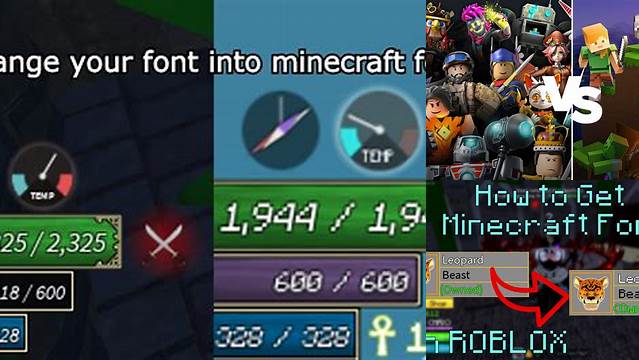
Roblox Fonts In Minecraft: A Style Crossover Guide
Hey guys! Ever wondered how to bring a little bit of your favorite Roblox vibe into Minecraft? Or maybe you're just curious about the fonts that make these games so visually distinct? Well, you've come to the right place! Today, we're diving deep into the world of Roblox fonts and exploring how they can be integrated into the blocky universe of Minecraft. This is a super cool topic, especially if you're into game design, aesthetics, or just love customizing your gaming experience. So, let's get started!
Understanding Fonts in Gaming
First things first, let's chat about why fonts are so crucial in the gaming world. You might think they're just a minor detail, but trust me, they play a massive role in shaping the overall feel and user experience of a game. Fonts are the unsung heroes of game design, influencing everything from readability to the emotional tone a game conveys. Think about it: a futuristic sci-fi game wouldn't use a handwritten, cursive font, right? It would clash terribly! The font needs to match the game's theme and atmosphere.
In games like Roblox and Minecraft, the fonts chosen contribute significantly to their unique identities. Roblox, with its playful and approachable style, often uses fonts that are blocky, rounded, and easy on the eyes. This reflects the game's target audience, which includes a lot of younger players. On the other hand, Minecraft, with its pixelated and somewhat retro aesthetic, typically employs fonts that complement its blocky graphics and simple design. The font needs to be legible even with all the pixelation, adding to the game's charm rather than detracting from it.
Fonts impact more than just the text you read in menus and dialogues. They affect how you perceive the game's world, its characters, and its overall story. A well-chosen font can immerse you deeper into the game, while a poorly chosen one can break that immersion faster than you can say "game over." This is why game developers spend a considerable amount of time selecting and sometimes even creating custom fonts that perfectly match their game's vision. So, when we talk about bringing Roblox fonts into Minecraft, we're not just talking about changing the look of the text; we're talking about potentially altering the entire feel of the game. Cool, right?
The Allure of Roblox Fonts
So, what's so special about Roblox fonts anyway? Why would you even want to use them in Minecraft? Well, there are a few reasons. First off, Roblox has a very distinct visual style that many players find appealing. Its fonts are often bold, simple, and slightly cartoonish, which gives the game a friendly and inviting vibe. If you're a fan of this aesthetic, bringing it into Minecraft can be a fun way to personalize your gaming experience.
Many players have grown up with Roblox, so its fonts might evoke a sense of nostalgia. Imagine seeing those familiar letters and words in a new context – it's like a little easter egg for your brain! Plus, if you stream or create content around Minecraft, using Roblox fonts can be a cool way to add a unique visual signature to your brand. It's a subtle nod to another popular game that your audience might appreciate.
Another reason is simply the novelty of it. Minecraft is known for its classic, pixelated font, which is part of its charm. But sometimes, you just want to mix things up! Swapping out the default font for a Roblox-inspired one can give your game a fresh new look and feel. It's a bit like redecorating your in-game house – a small change that can make a big difference.
But beyond the aesthetics, using Roblox fonts in Minecraft can also be a fun technical challenge. It's an opportunity to explore how game customization works and to learn a bit about font files and how they're implemented. This can be particularly interesting if you're into modding or game development yourself. You get to tinker with the game's inner workings and see how different elements interact. In short, the allure of Roblox fonts lies in their distinctive style, the nostalgia they evoke, the opportunity for personalization, and the technical fun they offer. It's all about making your gaming experience your own!
Identifying Roblox Fonts
Okay, so you're intrigued by the idea of using Roblox fonts in Minecraft, but how do you even figure out what those fonts are called? Identifying fonts can be a bit of a detective game, but there are some handy tools and tricks you can use. The most common Roblox font is called Gotham. It's a sans-serif font that's clean, modern, and highly readable, making it a great choice for a wide range of applications, including game interfaces. You'll see Gotham used extensively throughout the Roblox platform, from the website to the in-game menus.
But Roblox isn't limited to just one font. Depending on the context, you might encounter other fonts as well. For example, certain games within Roblox might use custom fonts to fit their specific themes. To identify these fonts, you can try using online font identification tools. These tools allow you to upload an image of the text in question, and they'll analyze the shapes of the letters to suggest possible matches. It's like Shazam for fonts!
Another method is to browse font websites and compare the fonts you see in Roblox to the ones in the font libraries. This can be a bit more time-consuming, but it's a good way to develop your font recognition skills. Look for distinctive features, like the shape of the letter "a" or the curve of the letter "s." These small details can help you narrow down the possibilities.
In conclusion, the world of fonts in gaming is a fascinating one, and bringing Roblox fonts into Minecraft is just one example of the creative possibilities. As technology advances and player expectations evolve, we can expect to see even more innovation and customization in this area. So, keep experimenting, keep exploring, and keep making your games your own!